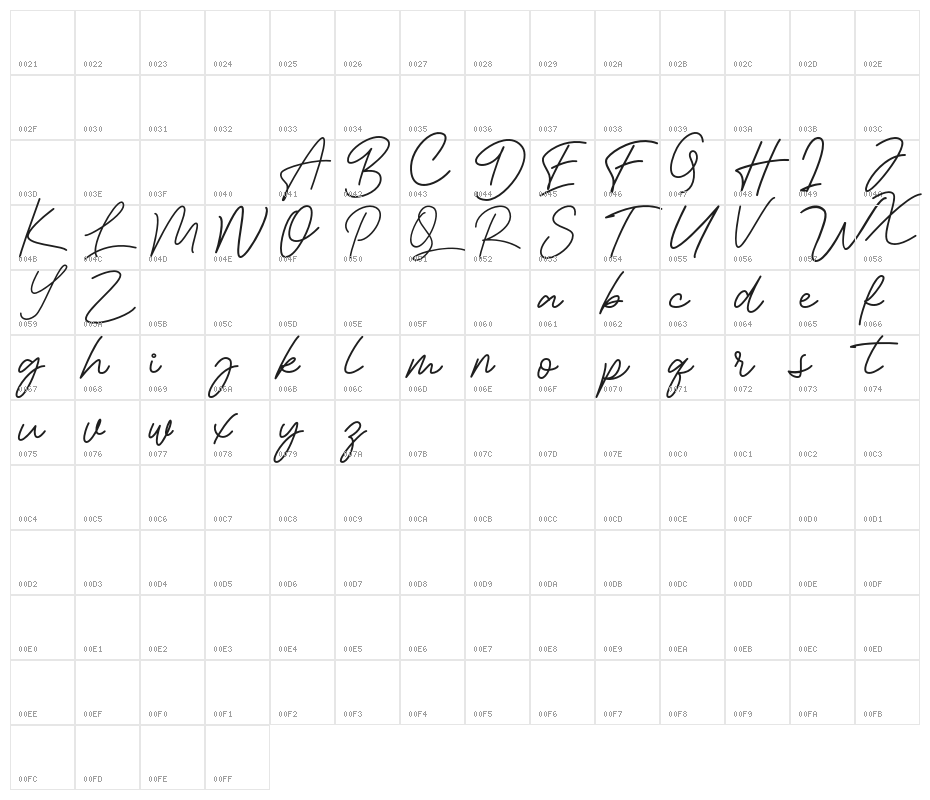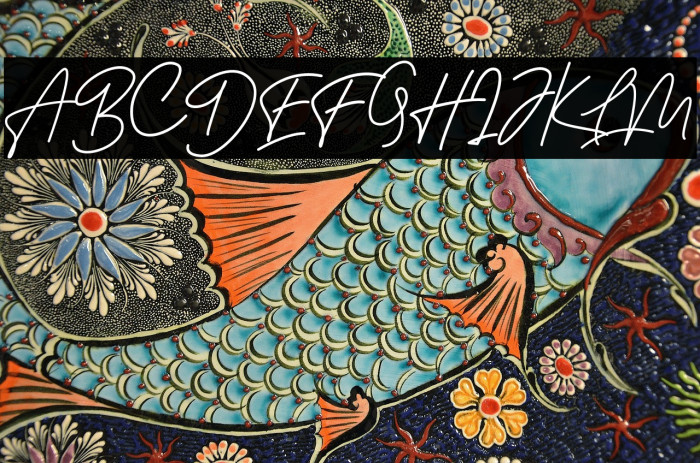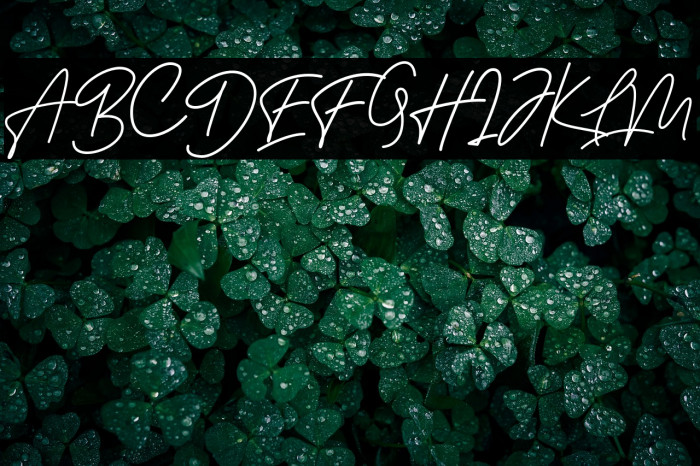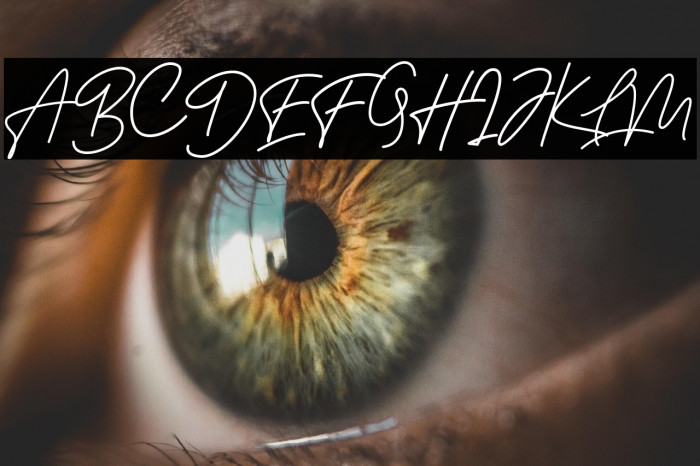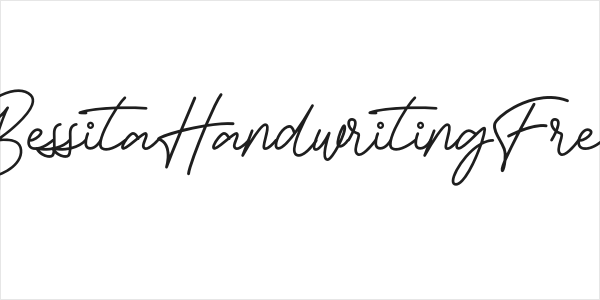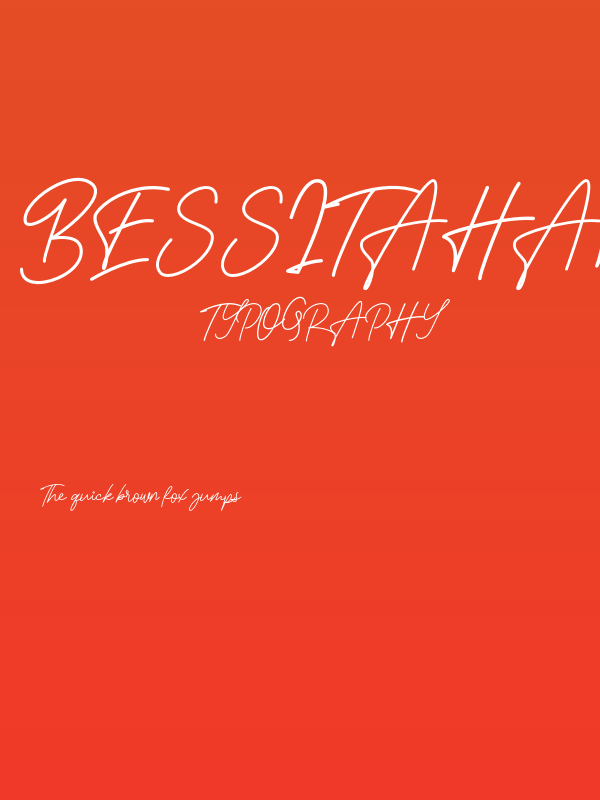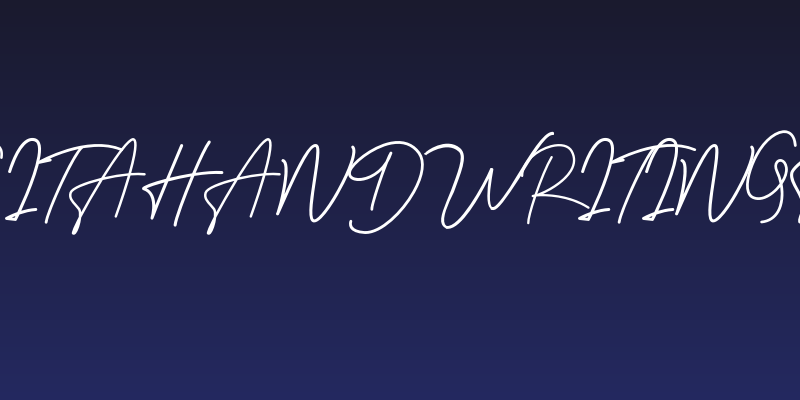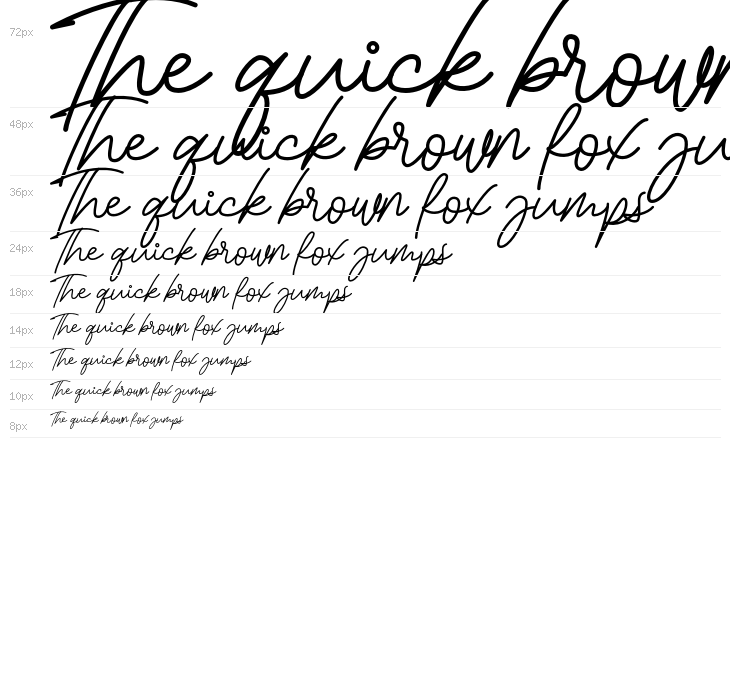
BessitaHandwritingFree Font
BessitaHandwritingFree Description
A flowing, cursive handwriting font with a natural and personal touch, featuring smooth, connected strokes.
| Overall Style | Elegant, Personal |
| Use Case | Invitations, Personal notes |
| Proposed Projects | Invitations, personal letters, branding. |